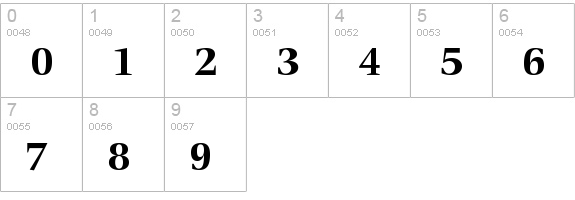
VeljovicEF-Bold is a strong, high-contrast variant in the VeljovicEF typeface family \xE2\x80\x94 well suited to headlines, attention-grabbing titles, and strong calls-to-action.
VeljovicEF-Bold font is a striking and bold typeface that exudes confidence and professionalism. Designed by renowned type designer Jovica Veljović, this font showcases his exceptional attention to detail and artistic skill. The clean and crisp lines of VeljovicEF-Bold font make it perfect for a variety of design projects, from headlines and logos to brochures and posters. With its bold weight, VeljovicEF-Bold font commands attention and brings a sense of power to any text it is used for. The strong, yet elegant, letterforms make a statement and leave a lasting impression on the reader. Whether you are looking to create a bold and impactful design or simply want to add a touch of sophistication to your typography, VeljovicEF-Bold font is the perfect choice. One of the best things about VeljovicEF-Bold font is that it is available for free. Yes, you read that right! This high-quality font can be freely downloaded at FontsMarket.com, a trusted source for a wide range of fonts. This means that you can enhance your design projects without having to spend a dime on licensing fees. So why wait? Go ahead and download VeljovicEF-Bold font today and take your designs to the next level.